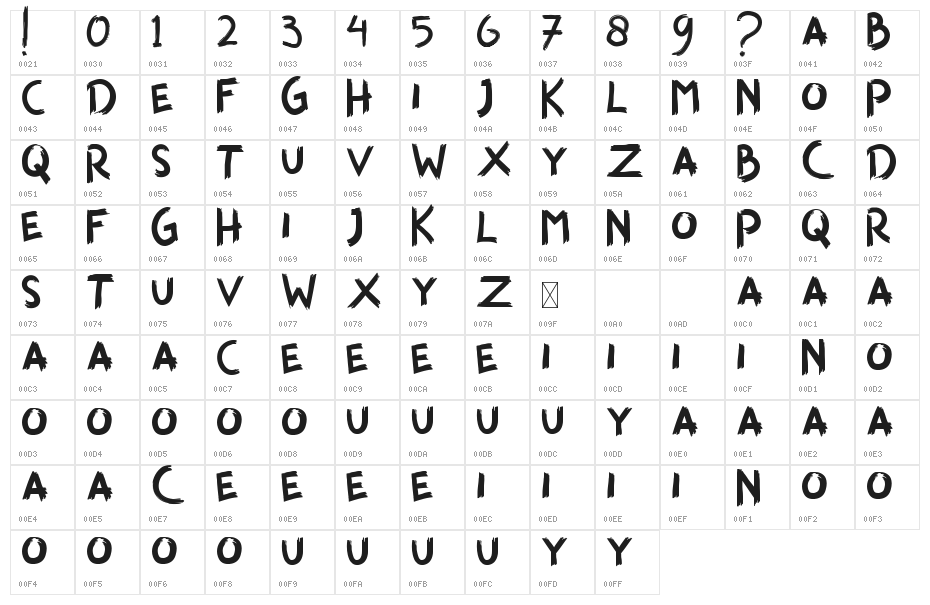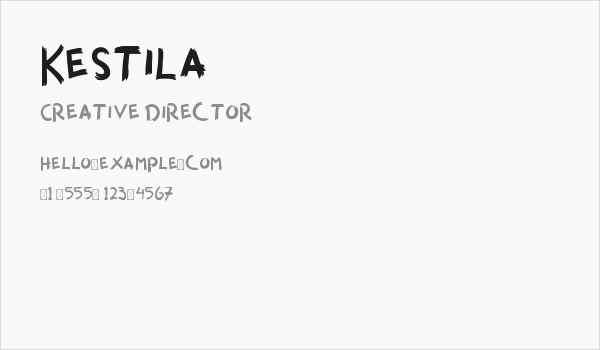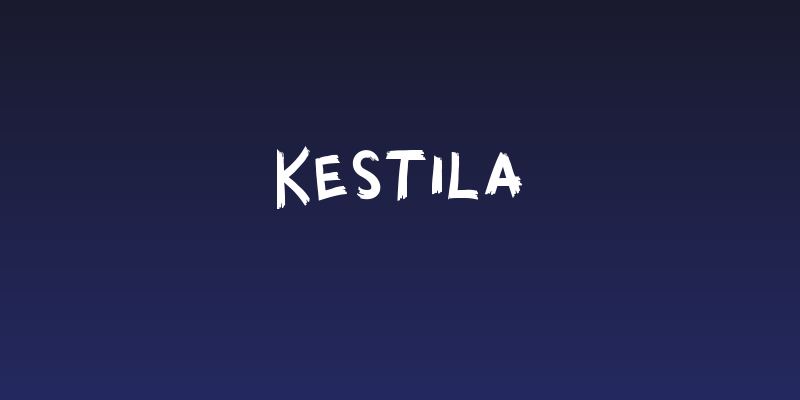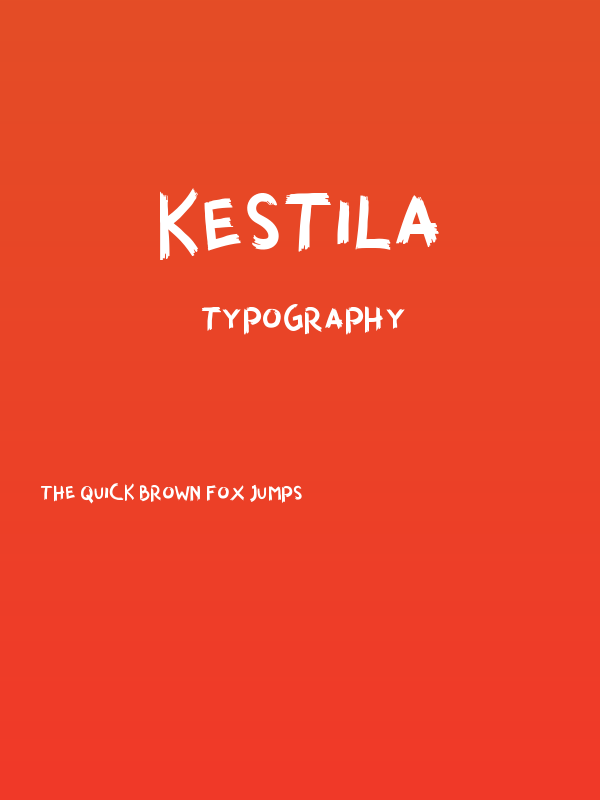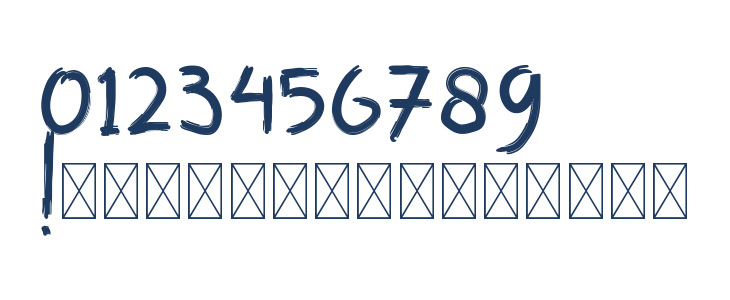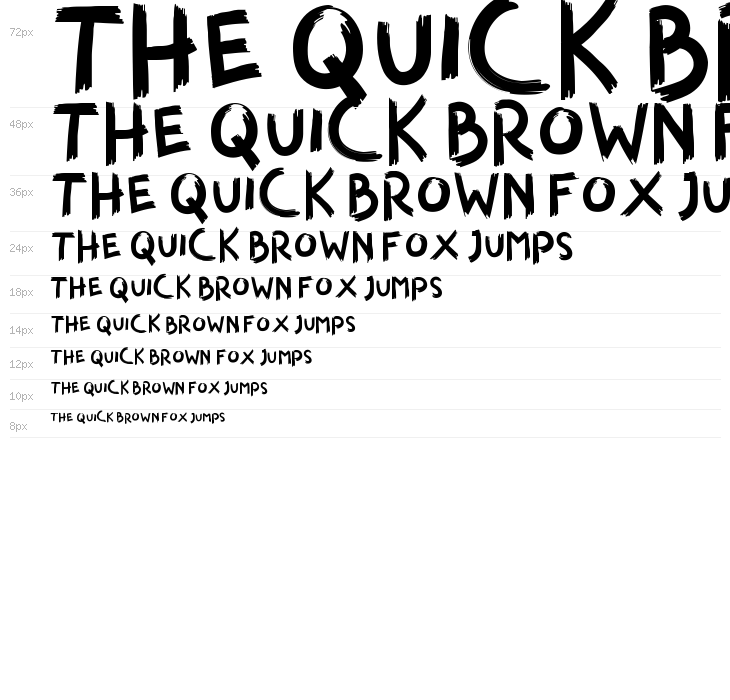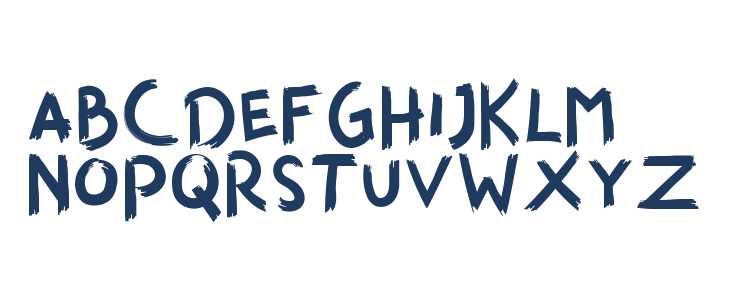
Kestila Font
Kestila Description
This font features a bold, brush-like style that exudes a sense of energy and dynamism. The strokes are uneven and textured, giving it a hand-painted appearance. Each character is distinct, with varying thicknesses that add to its artistic flair. The uppercase and lowercase letters maintain a consistent style, while the numerals and special characters complement the overall aesthetic. This font is ideal for projects that require a creative and expressive touch, such as posters, branding, and artistic designs.
| Overall Style | Artistic, Energetic |
| Proposed Projects | Ideal for creative projects like posters, branding, and artistic designs. |